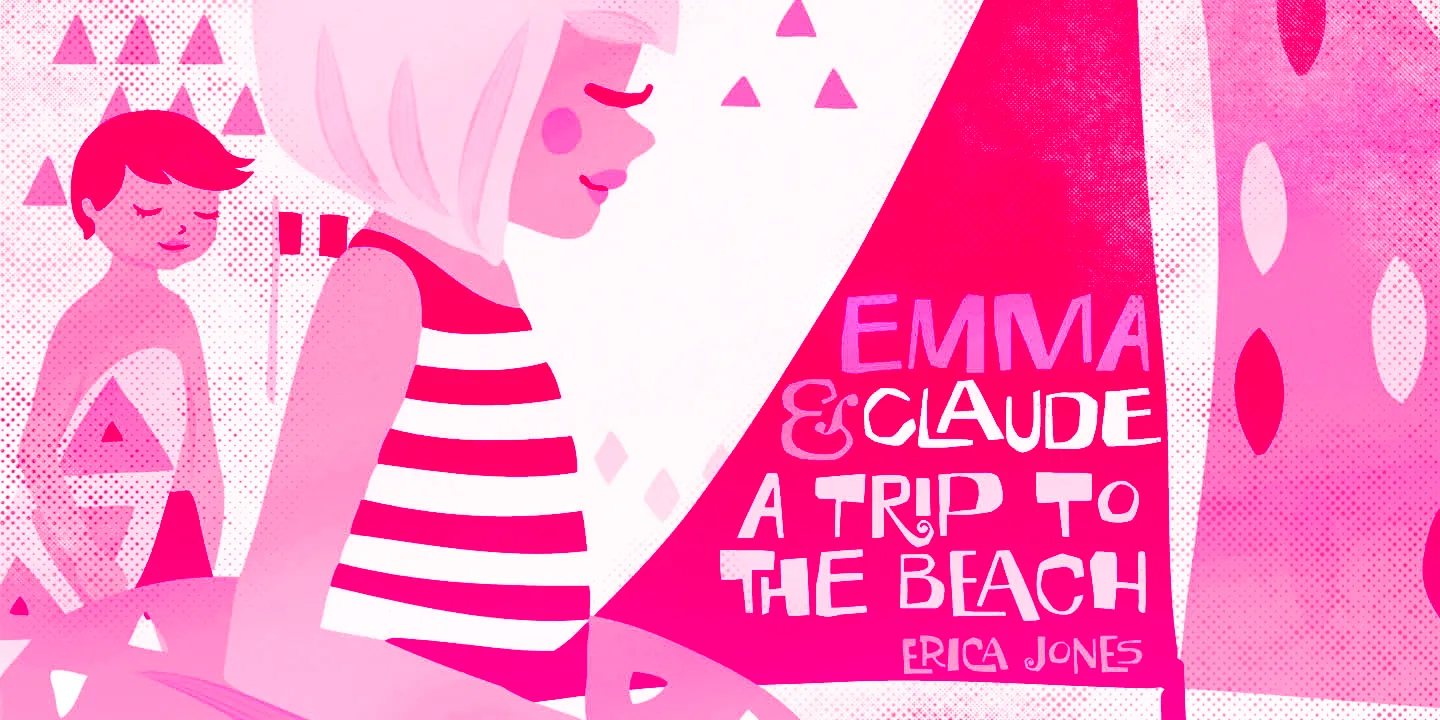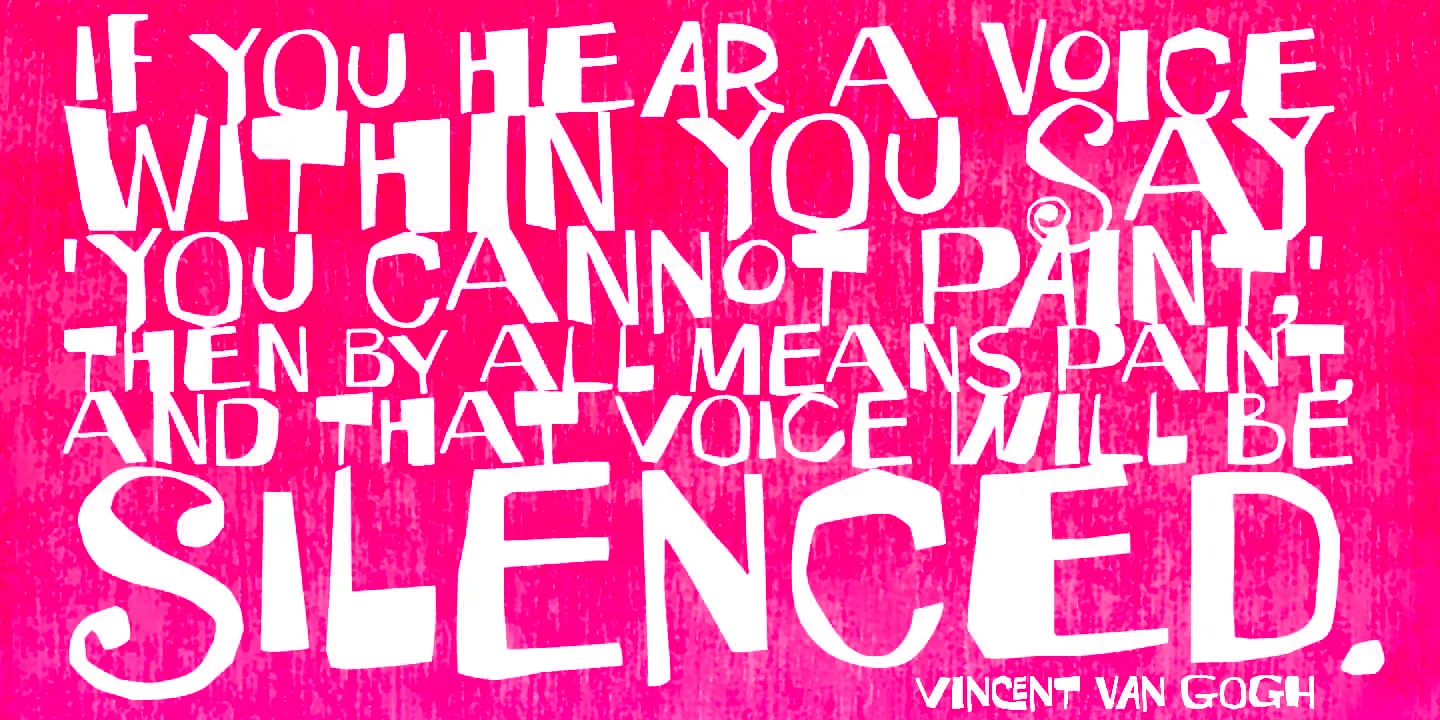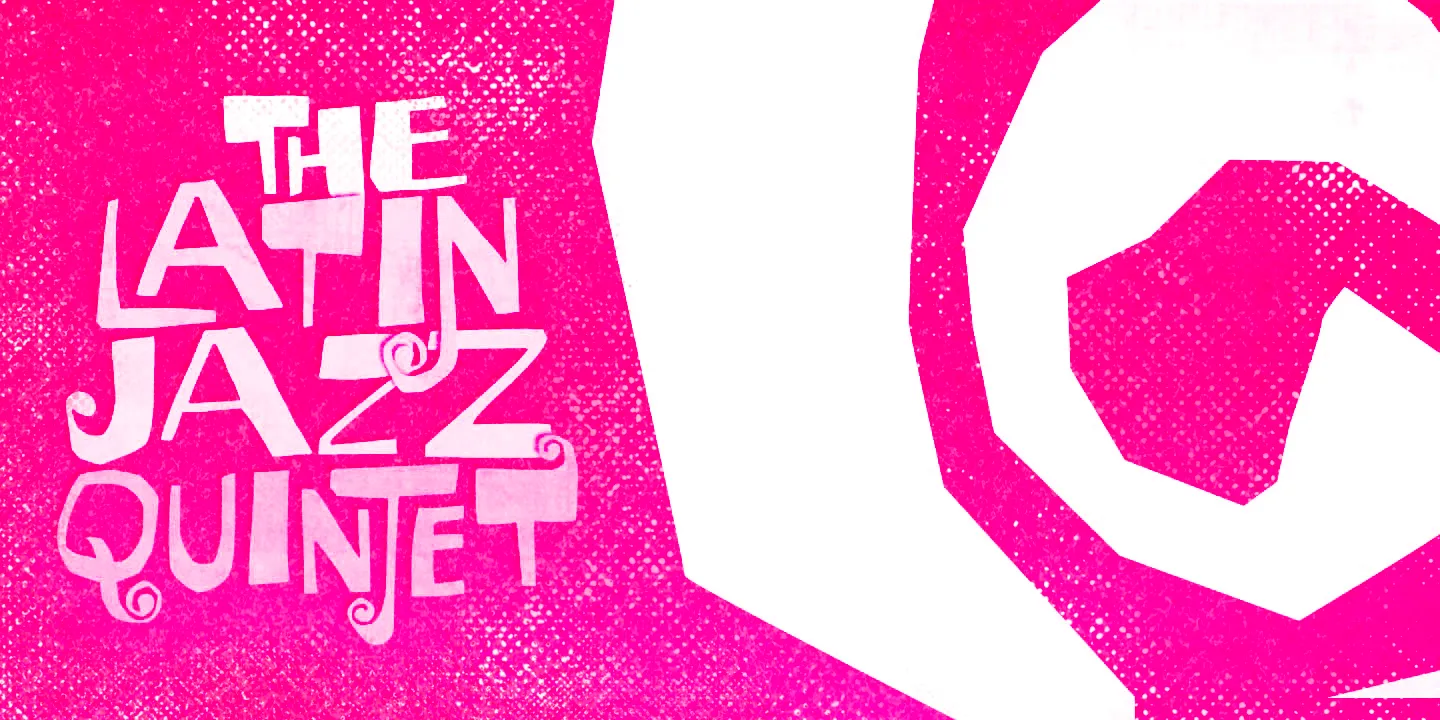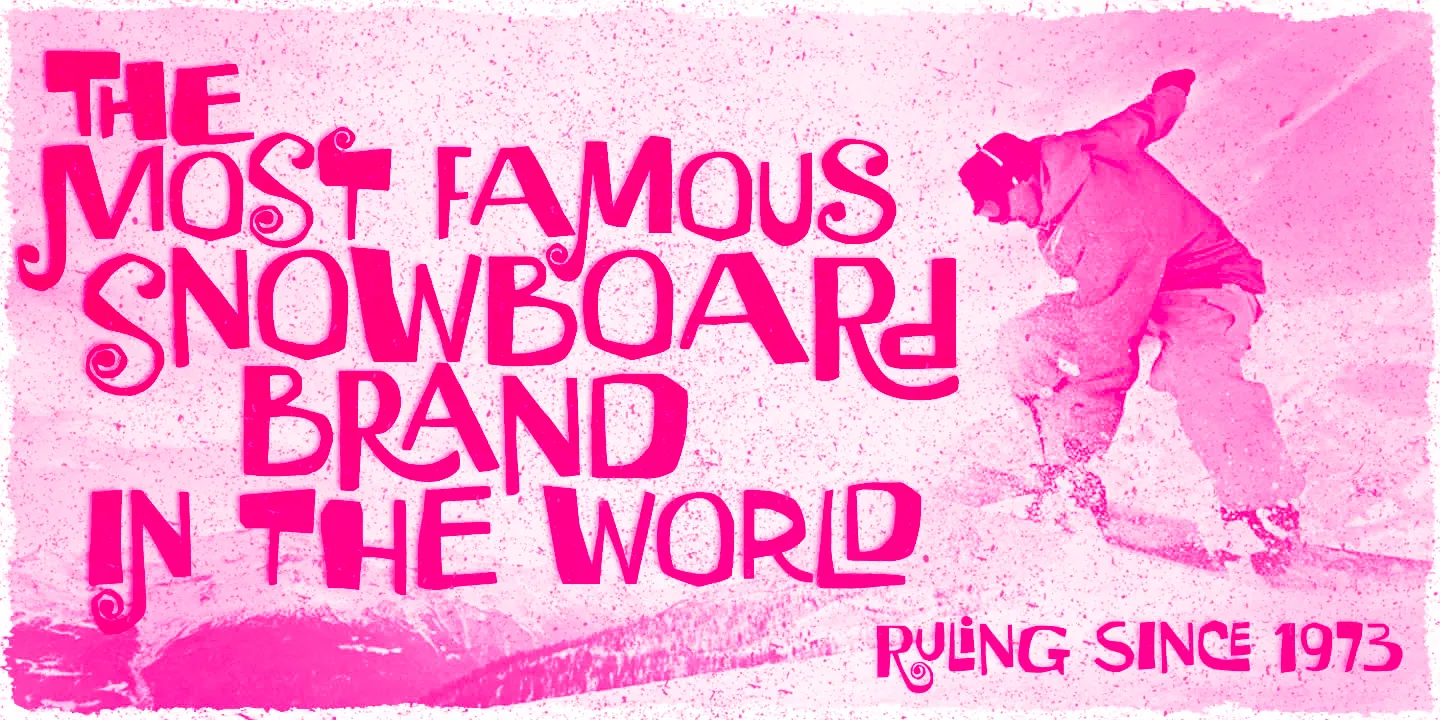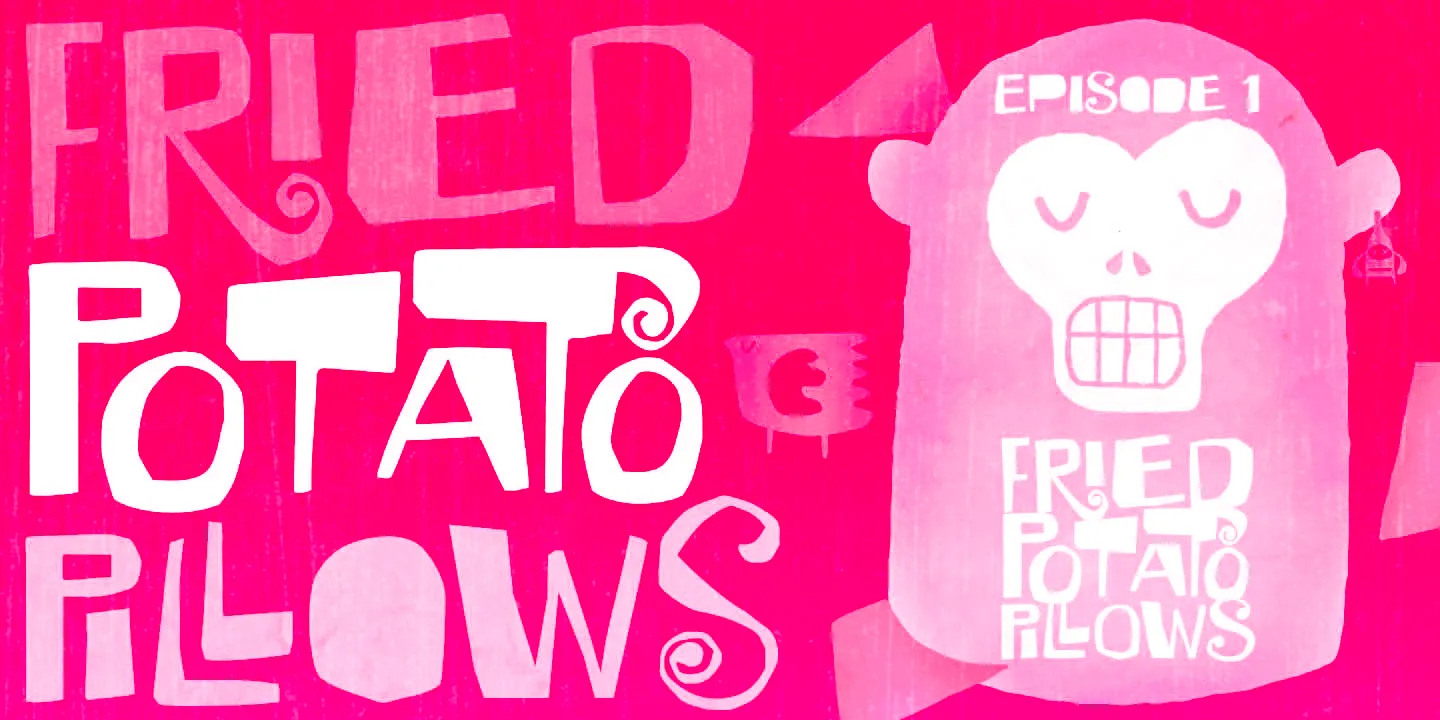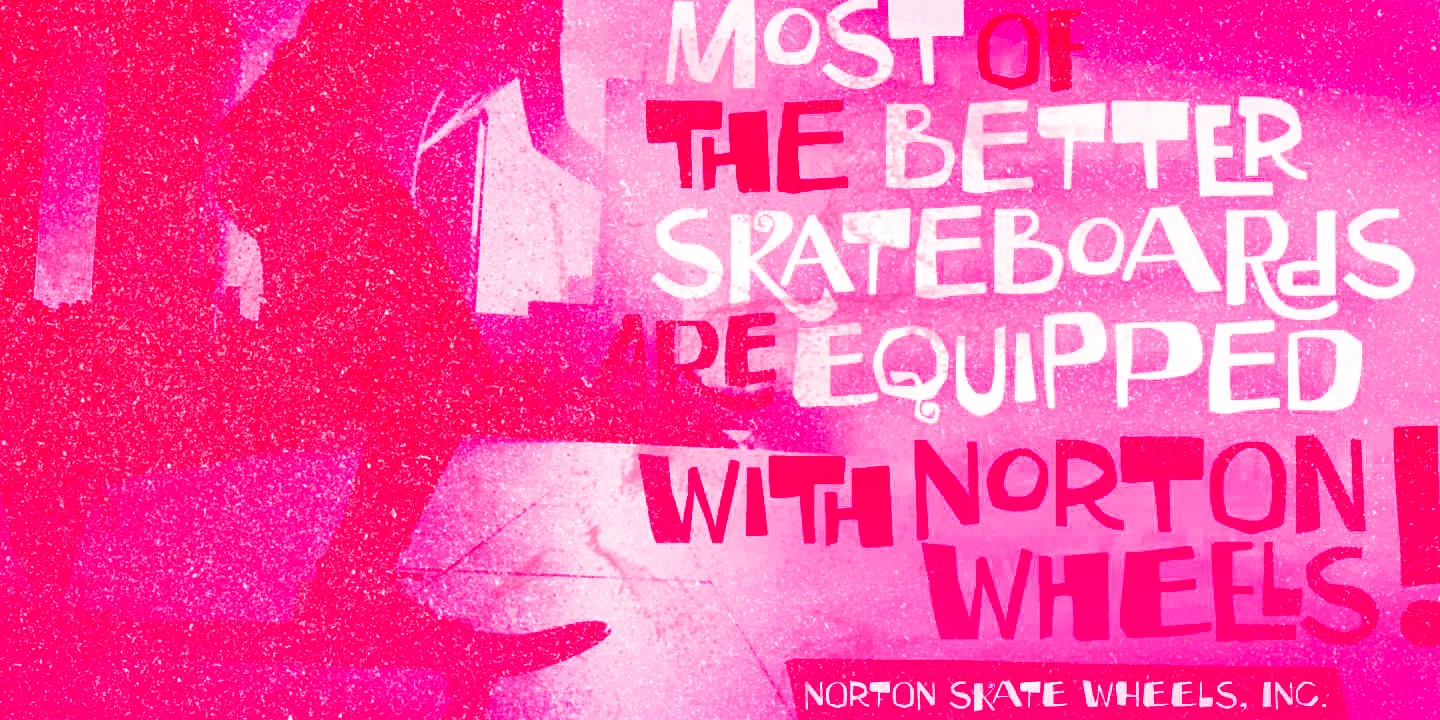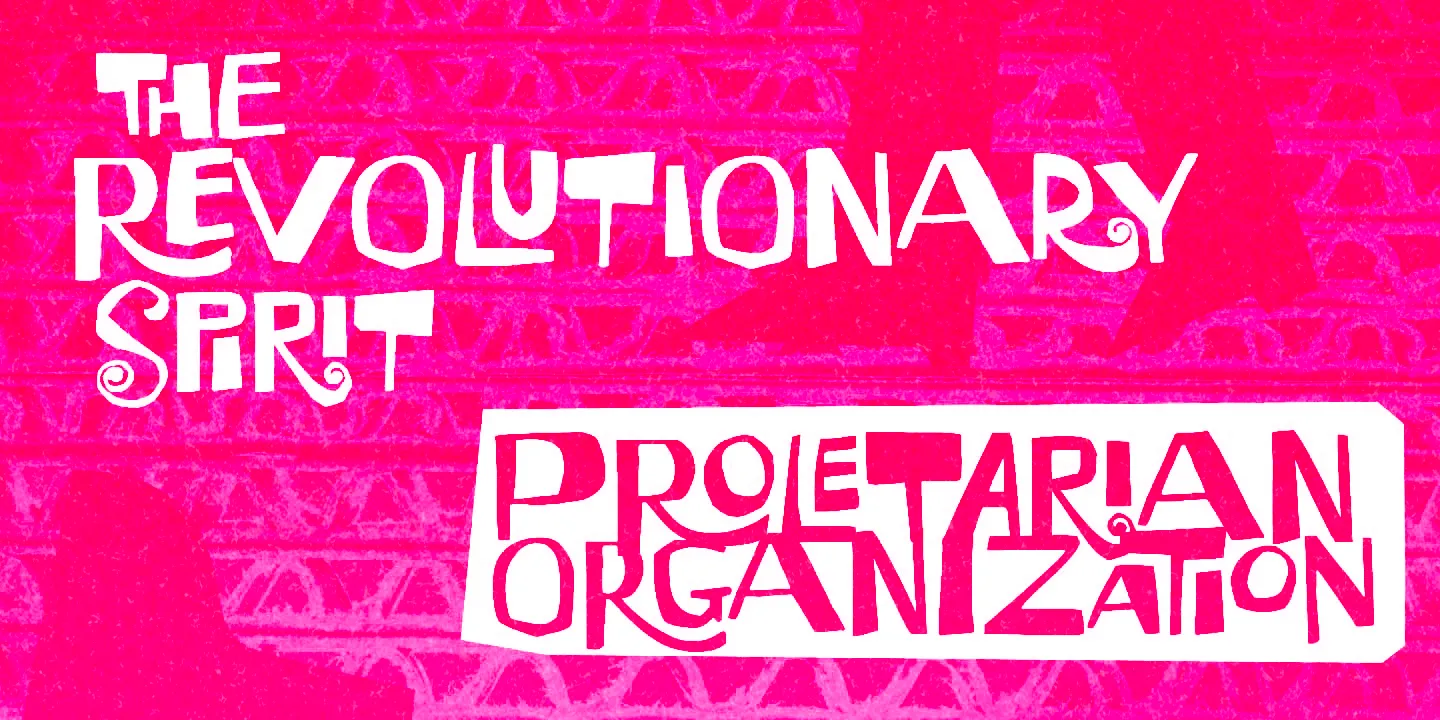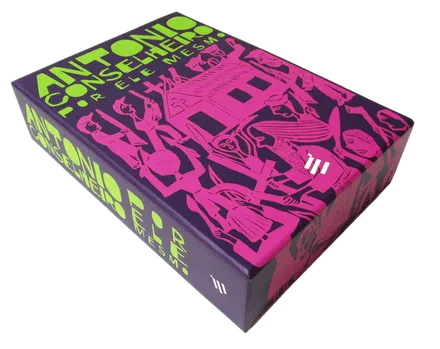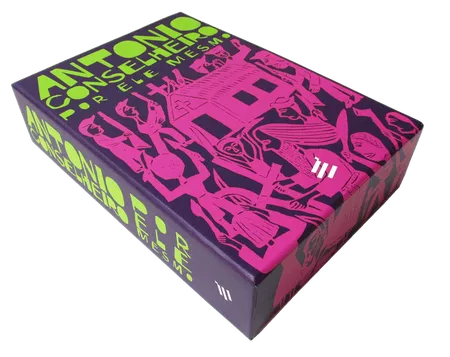
Granz
Granz has a swinging, hand-cut look inspired by Oscar Peterson’s iconic Porgy & Bess album cover, designed by David Stone Martin — the prolific American illustrator who created over 400 album covers, primarily for the jazz greats of the 1940s and beyond. This hand-lettered design features interlocking pairs, contextual and stylistic alternates, and swashes to make it highly flexible, perfect for jazzing up your designs. Great for book covers, titling, headlines, and t-shirts!
• Discretionary Ligatures
• Swashes